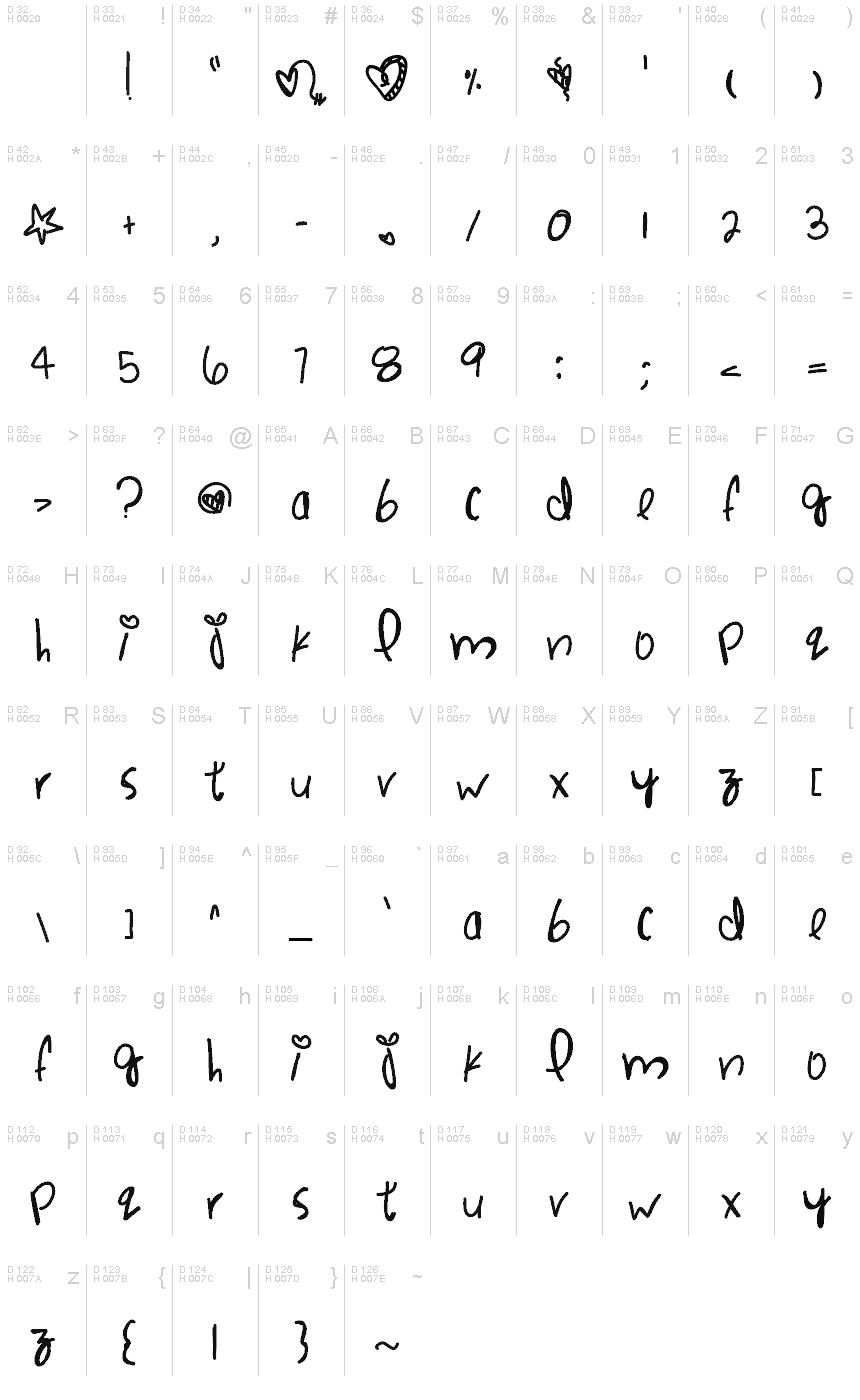
PunchDrunkLove
Punch Drunk Love is a captivating handwritten font designed by Des Gomez. Its light, playful strokes evoke a sense of casual sophistication, making it a versatile choice for a range of design applications. The font's organic, slightly imperfect nature lends a charming, human touch to any project, whether it's a chic fashion editorial, a whimsical greeting card, or a modern branding initiative.
Punch Drunk Love's unique character and effortless elegance make it a standout option for designers seeking to infuse their work with a touch of distinctive flair.